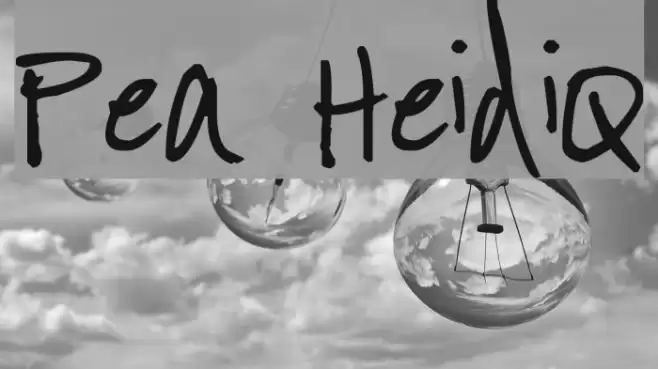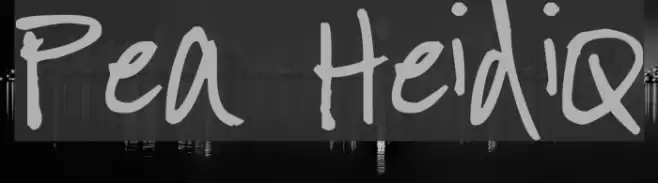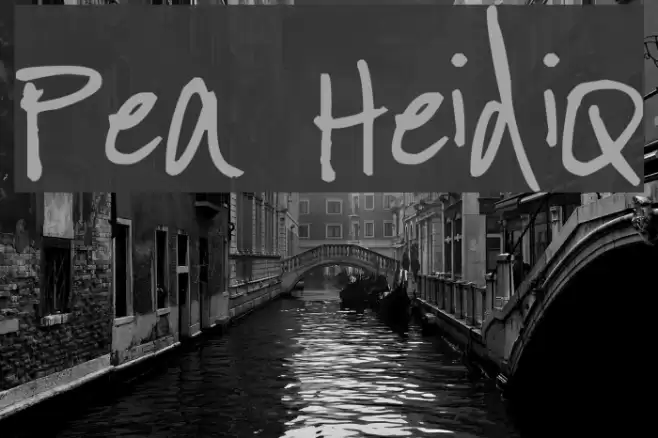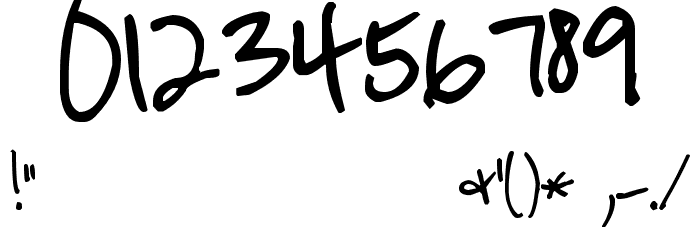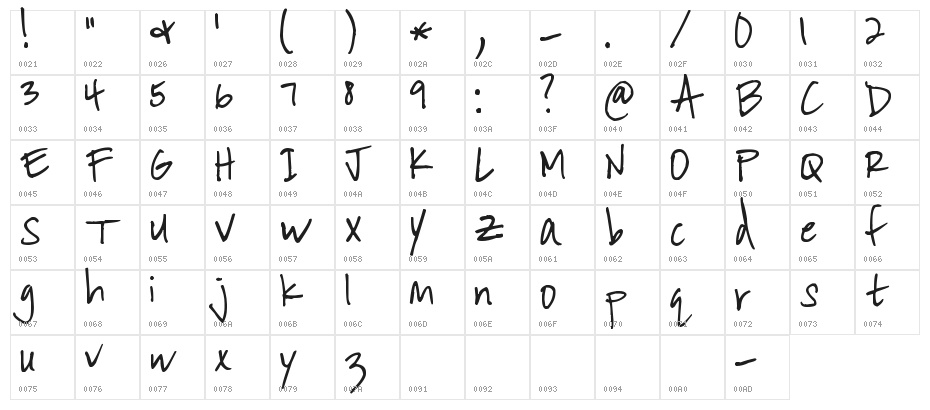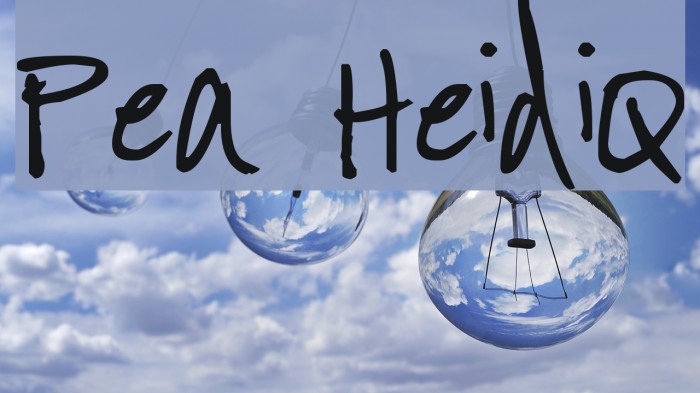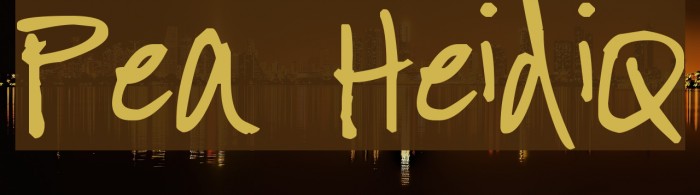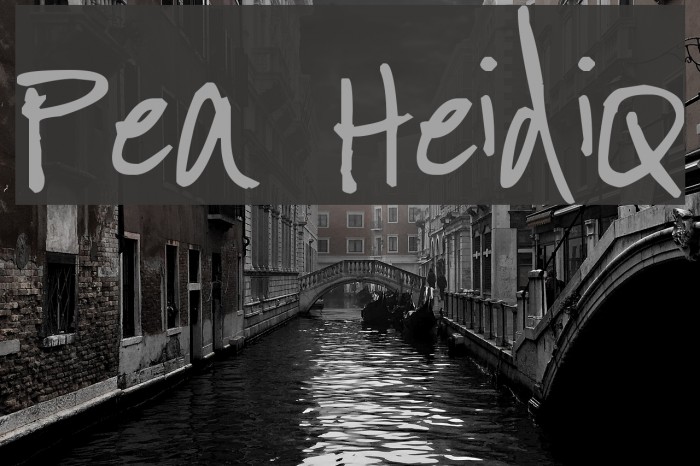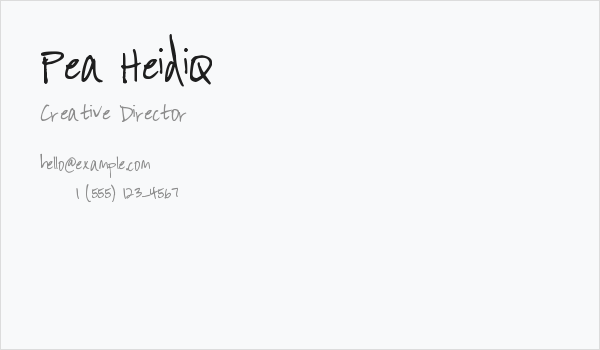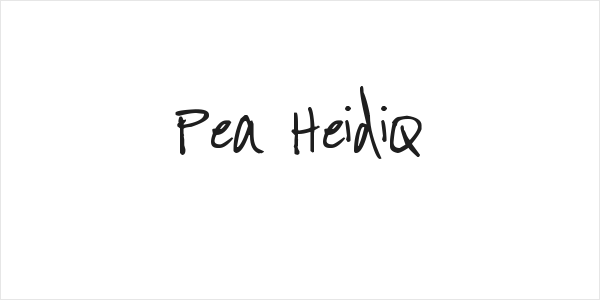
Pea HeidiQ Font
Pea HeidiQ Description
This font exudes a playful and casual handwritten style, characterized by its loose and informal strokes. The letters are slightly slanted, giving it a dynamic and lively appearance. Each character is unique, with varying heights and widths, adding to its charm and authenticity. The uppercase letters are bold and prominent, while the lowercase letters maintain a consistent flow. The numbers are clear and legible, matching the overall style of the alphabet. Special characters are creatively designed, maintaining the font's whimsical nature. This font is perfect for projects that require a personal touch or a friendly, approachable vibe.
A playful, casual handwritten font with dynamic strokes and unique character designs from Uncategorized fonts.
- Proposed Projects: Ideal for greeting cards, personal blogs, children's books, and informal branding.
- Overall Style: Casual
- Use Case: Headlines, Informal text, Personal projects